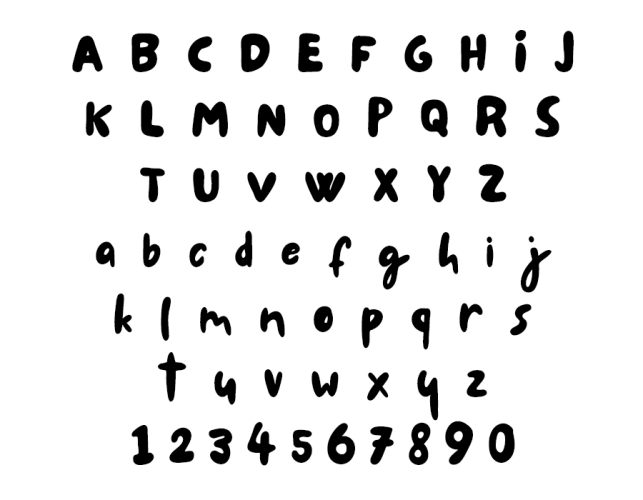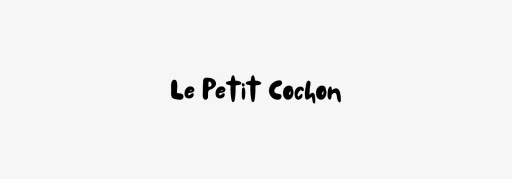
Le Petit Cochon Font
Le Petit Cochon is a cute and playful display font with soft curves and a friendly look. Its hand-drawn style works well in kids’ books, posters, packaging, and creative…
Le Petit Cochon is a cute and playful display font with soft curves and a friendly look. Its hand-drawn style works well in kids’ books, posters, packaging, and creative branding. Designers choose this font when they want to add charm, warmth, and a lighthearted feel to their projects.
Detail Information Font Name Le Petit Cochon Font Style Playful Display, Hand-drawn Designer Darrell Flood Category Display Font File Formats TTF, OTF (varies by source) Use Case Kids’ books, posters, packaging, creative branding License Free for personal use only Commercial Use Not allowed without permission Origin Website myfonts.com Design Features Soft curves, friendly style, hand-drawn feelWhere Le Petit Cochon Font works best
Le Petit Cochon Font is built for size: event posters, hero headlines and billboard-style layouts.
High contrast display type like Le Petit Cochon Font reads instantly in thumbnails and motion graphics.
What is Le Petit Cochon Font good for?
Le Petit Cochon Font is a Display Fonts typeface tagged Branding, Creative, Display, Friendly. It works well for headlines, logos, posters, social media graphics and branding projects that need a distinctive display fonts look.